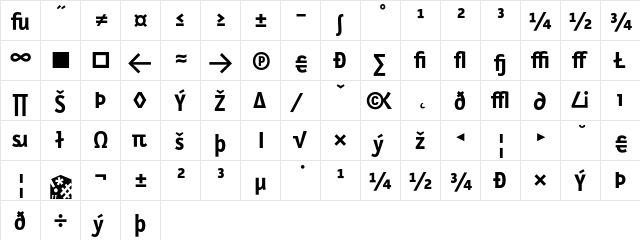
LetterGothicSlangT BoldExp
Design Context for LetterGothicSlangT Typeface
LetterGothicSlangT takes a clean, functional approach — its unadorned letterforms prioritise legibility and work reliably across screen and print environments. The heavy weight commands attention and anchors typographic hierarchies.
Well-suited to navigation labels, product packaging, and anywhere legibility at scale is essential.
Font Pairing: Use LetterGothicSlangT for headlines alongside a lighter-weight sans or serif for body copy to establish clear visual hierarchy.
Pro Tip: Use LetterGothicSlangT for UI labels, navigation, and short-form body copy where clean legibility is the priority.